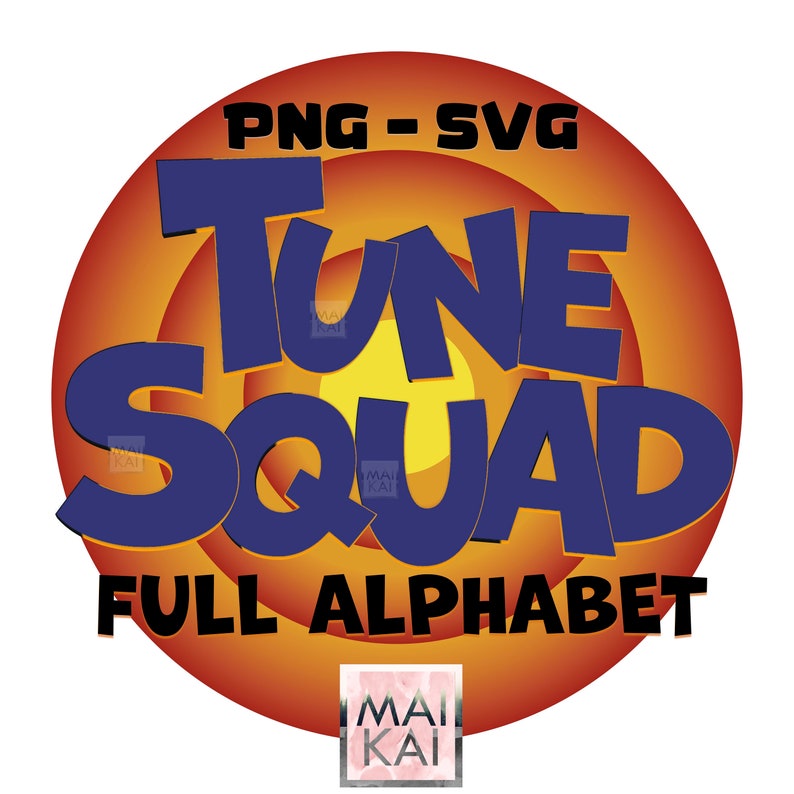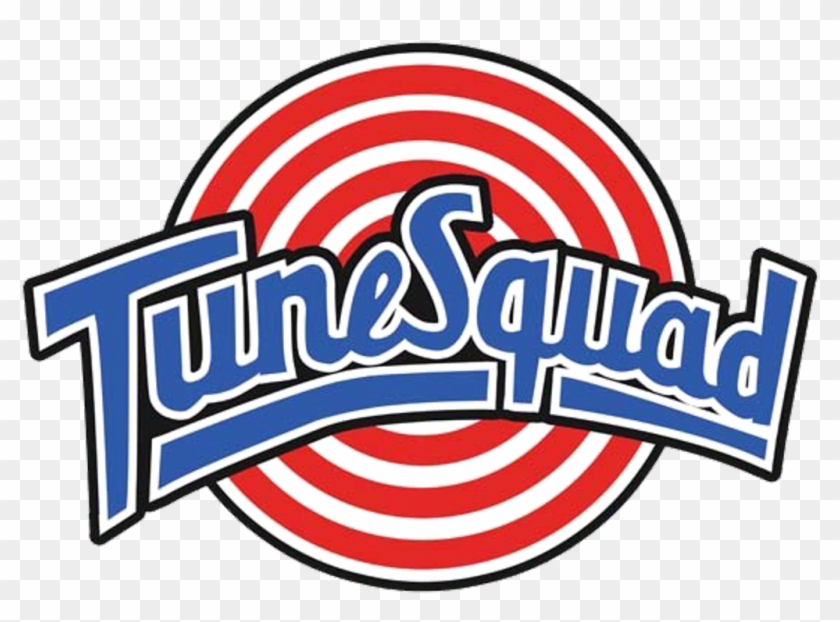
Tune Squad Font
Tune Squad Font - A tune squad font is a typeface for branding the fictional basketball team from the. It is a custom font and cannot be replicated. Web jul 06, 2021 at 22:29. This is my first time using this so where do i find the logo so i can add my own name ? Web aug 24, 2021 at 00:38. Web tune squad display font.